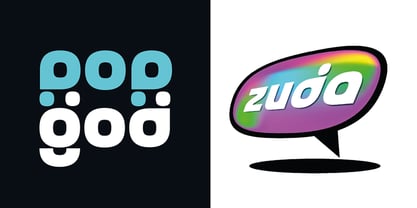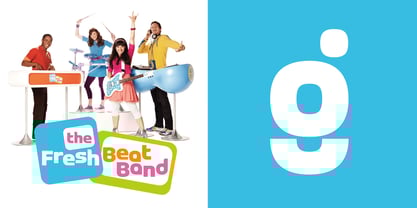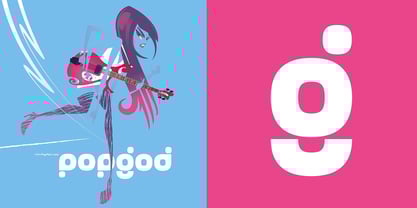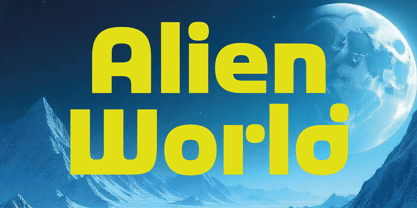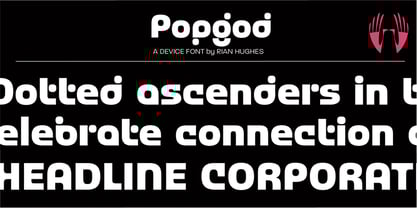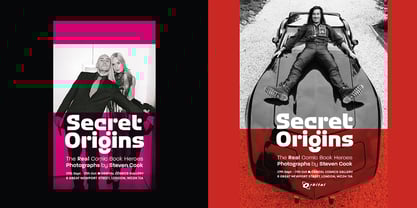
Popgod
Die Schriftfamilie Popgod wurde von Rian Hughes entworfen und von Device veröffentlicht. Popgod enthält 1 Stile.
Popgod adopts the idea of using an i-dot as the ‘ear’ on the lower-case g, then extends this on through to the other ascenders and descenders. Instead of the short spurs on characters such as the lower-case a, the outer contour is shaped to a right angle, reflected in the d, b, p and q. An unusual font with a sci-fi aesthetic that's both modern and legible.